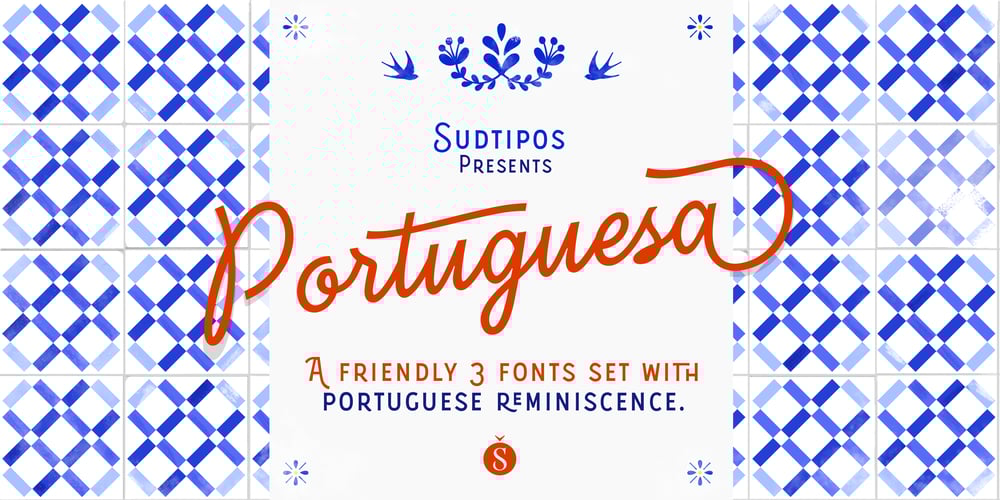
Portuguesa Font Family was designed by Alejandro Paul, Natalia Elichirigoity and published by Sudtipos. Portuguesa contains 3 styles and family package options. Inspired by the graphic spirit of old packaging and store signs of Portugal, this font seeks to transmit the warm and sunny sound of Portuguese language in a visual way. Portuguesa has 3 partners, designed to work nicely together and to complement one with each other. Portuguesa Script, with friendly and rhythmic personality, great for titles and short text, Portuguesa Caps, with small caps and ligatures that perfectly match (and contrast) with the script version. And Portuguesa Icons, that recalls the legendary blue tiles. This last version was specially designed to mix signs up with delightful combinations for creating patterns, borders, stationary, tableware and all kind of commercial products and projects that needs a memorable strike. The possibilities are numberless. As a mantra, Portuguesa is always in a positive mood, spreading the “Portuguese art of welcoming people”. Seja Bem-Vindo!